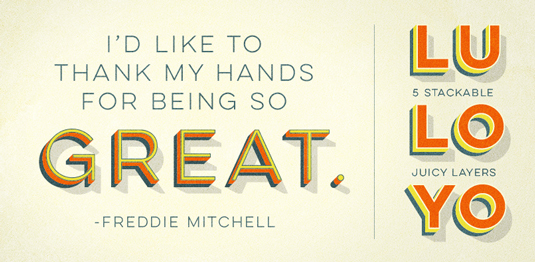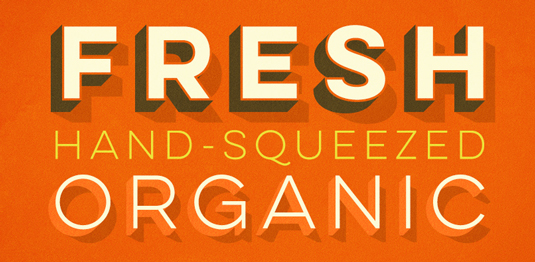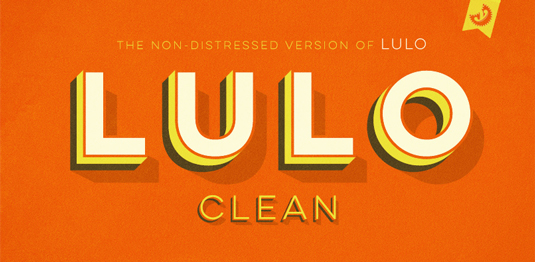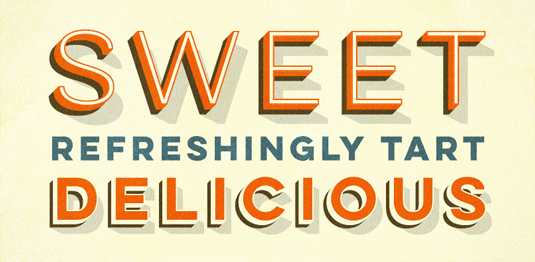
Font of the day: Lulo Clean
Lulo Clean from Yellow Design Studio
Created by the team at Yellow Design Studio, Lulo Clean is the non-distressed version of the original textured Lulo family. Available from font foundry HypeForType, it's described as being 'friendly, retro, and amazingly 3-dimensional'. An all-caps design, you can create endless effects by adding colours to each of the five stackable layers.